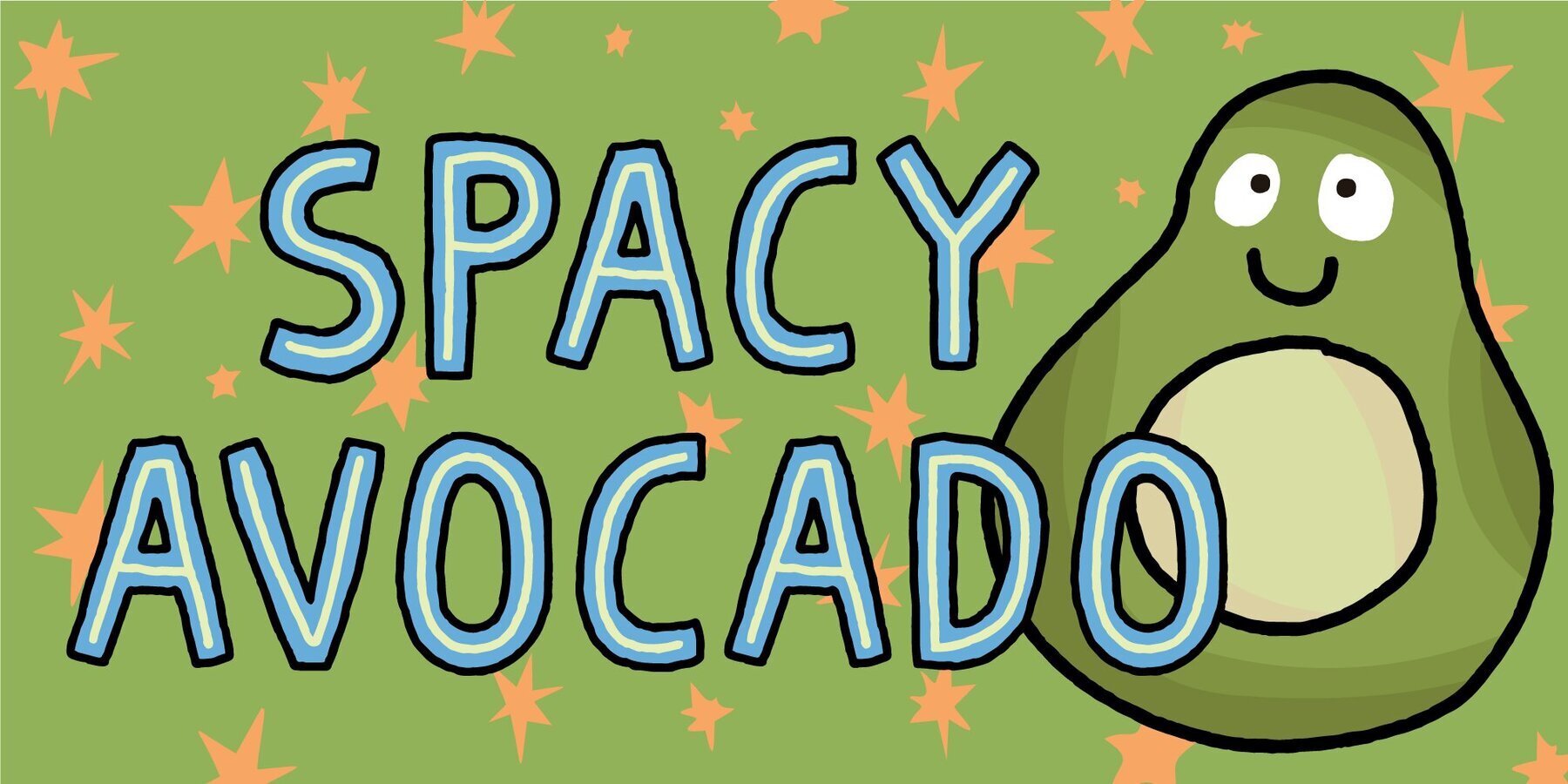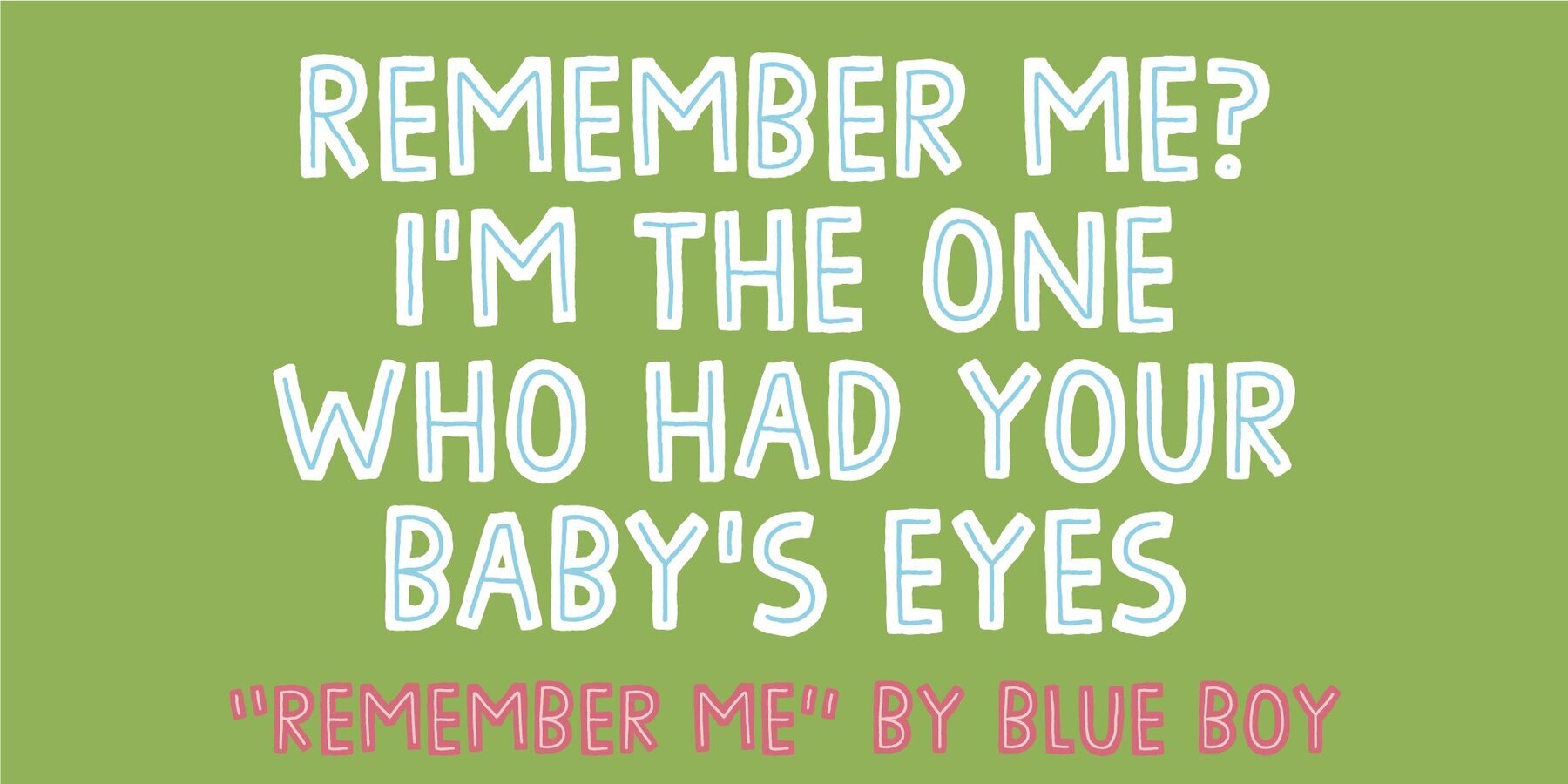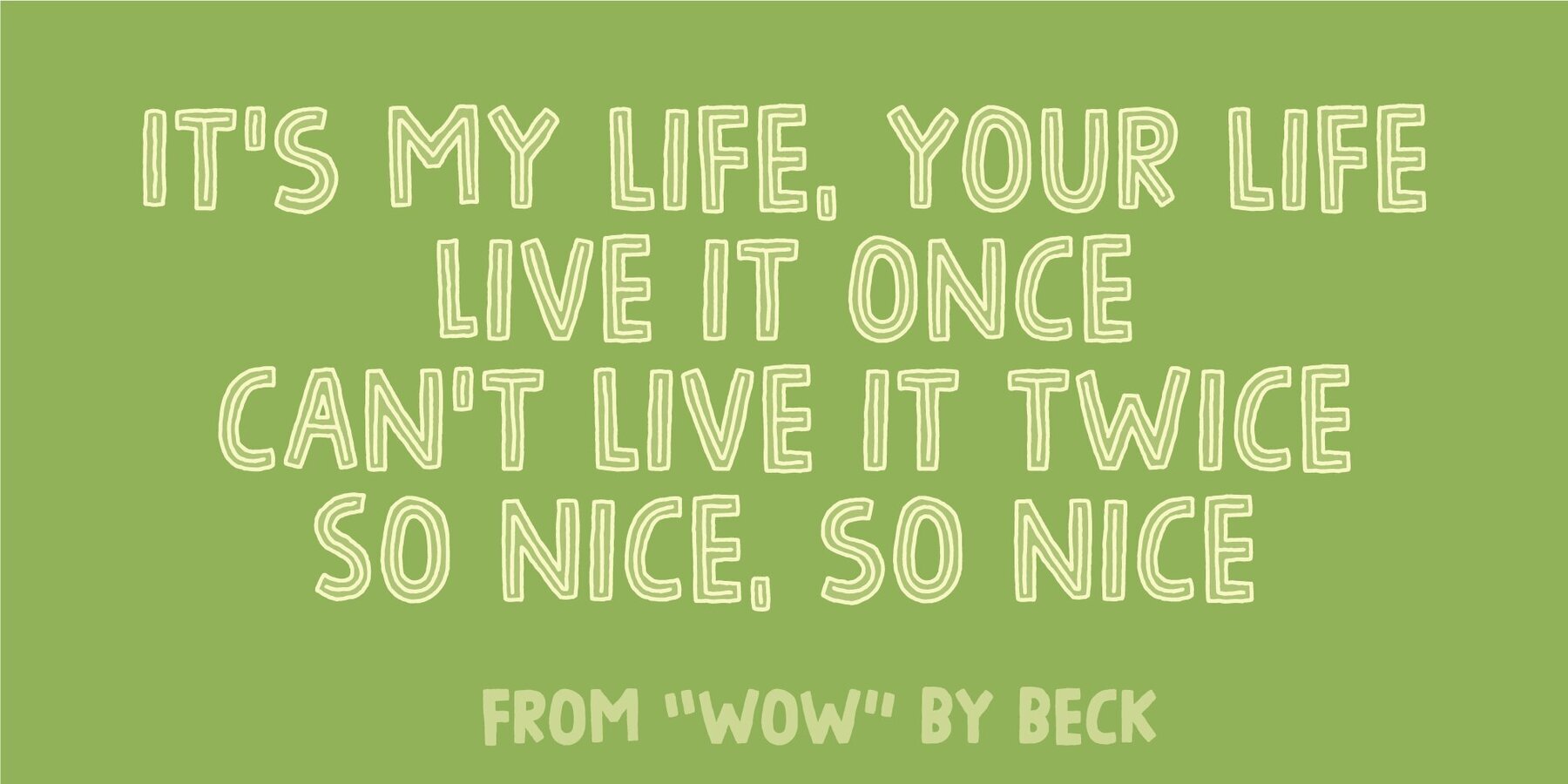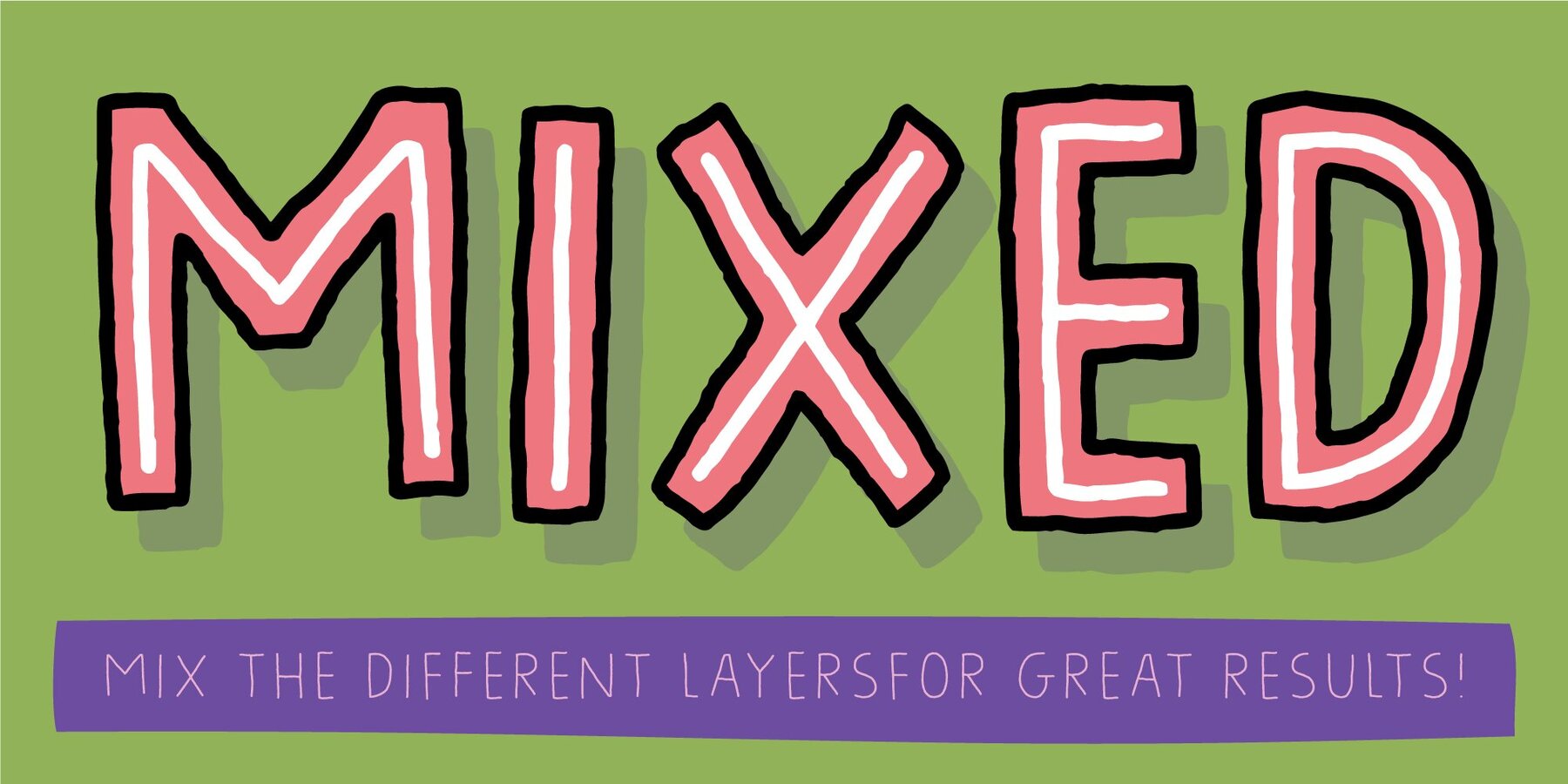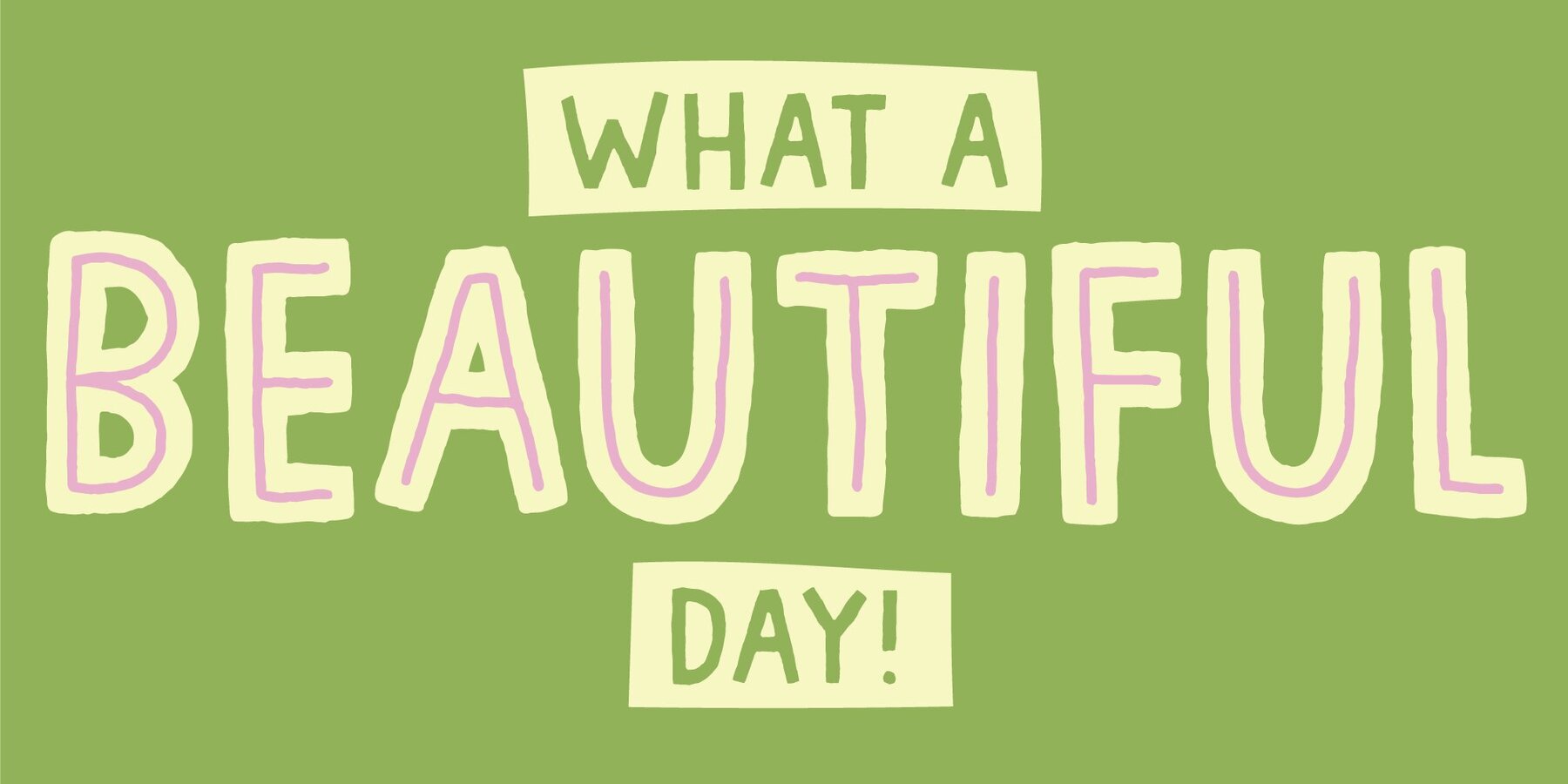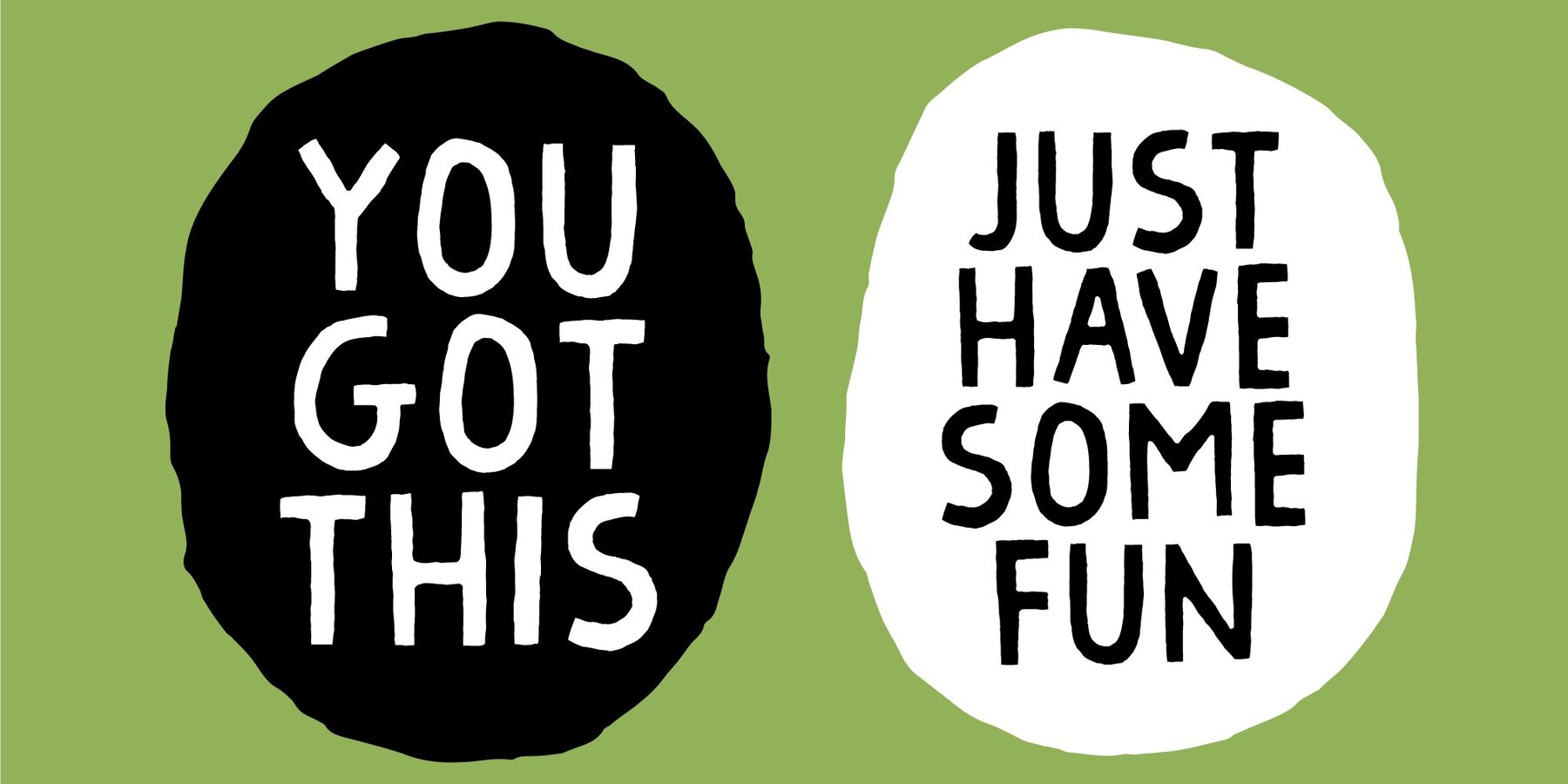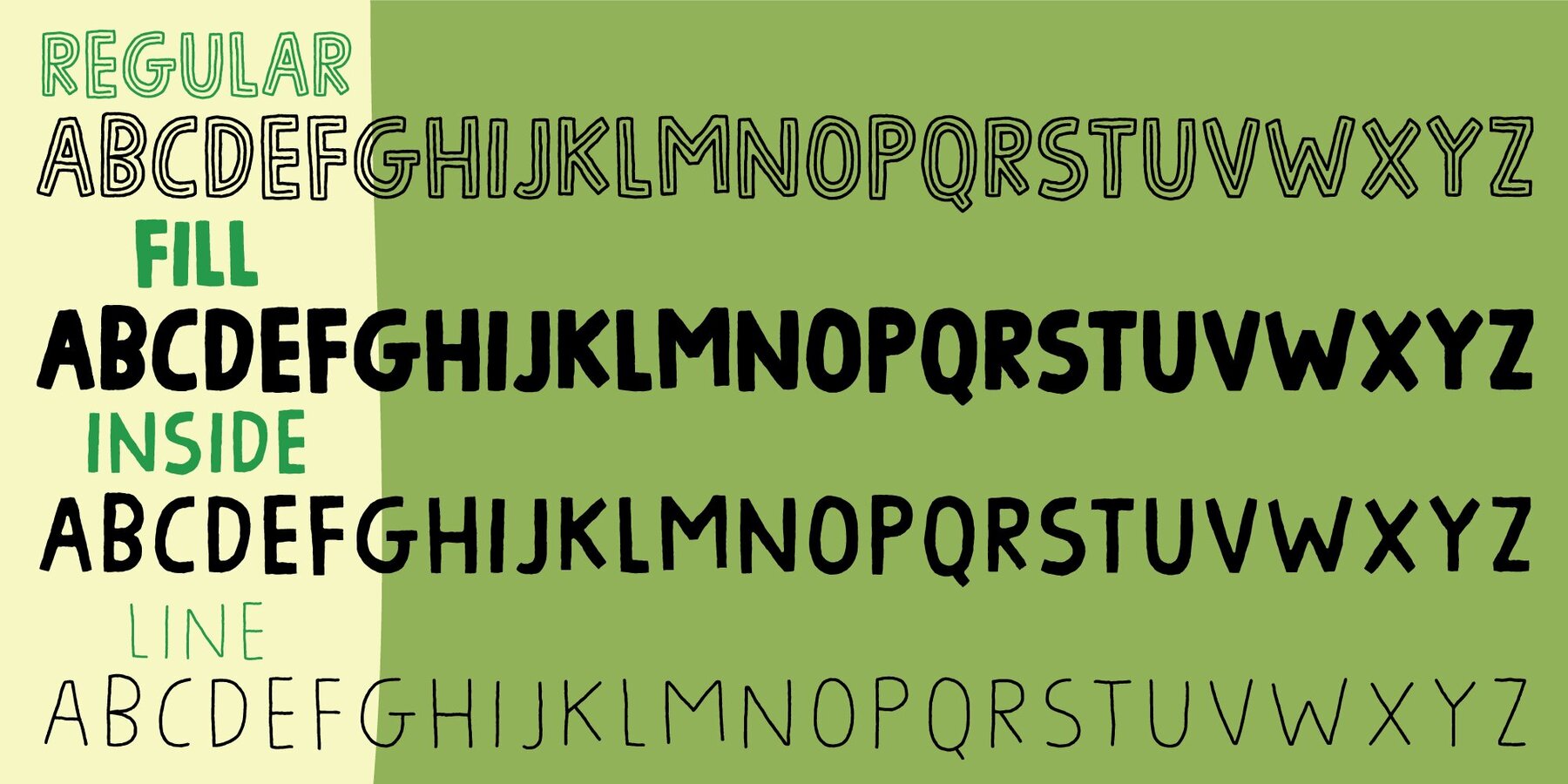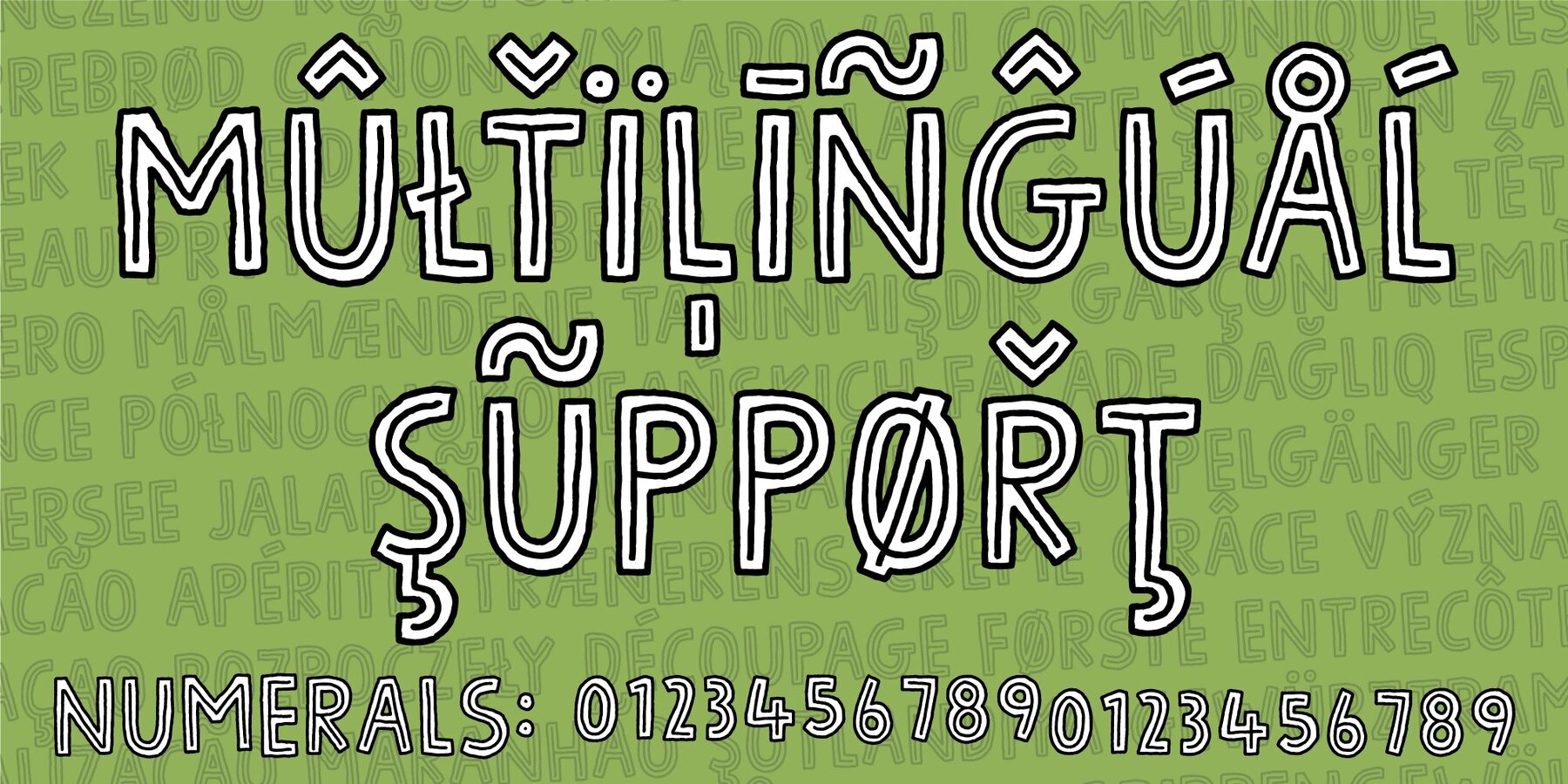
Spacy Avocado Font
Due to some grease on a menu, I misread “Spicy Avocado” as “Spacy Avocado” which led me to the name of this font. I love Avocados and I love things that are a bit spacy, and I love the combination of these two! Space Avocado is my handdrawn, layered headline font. Mix the layers or use them as a single font - you choose!